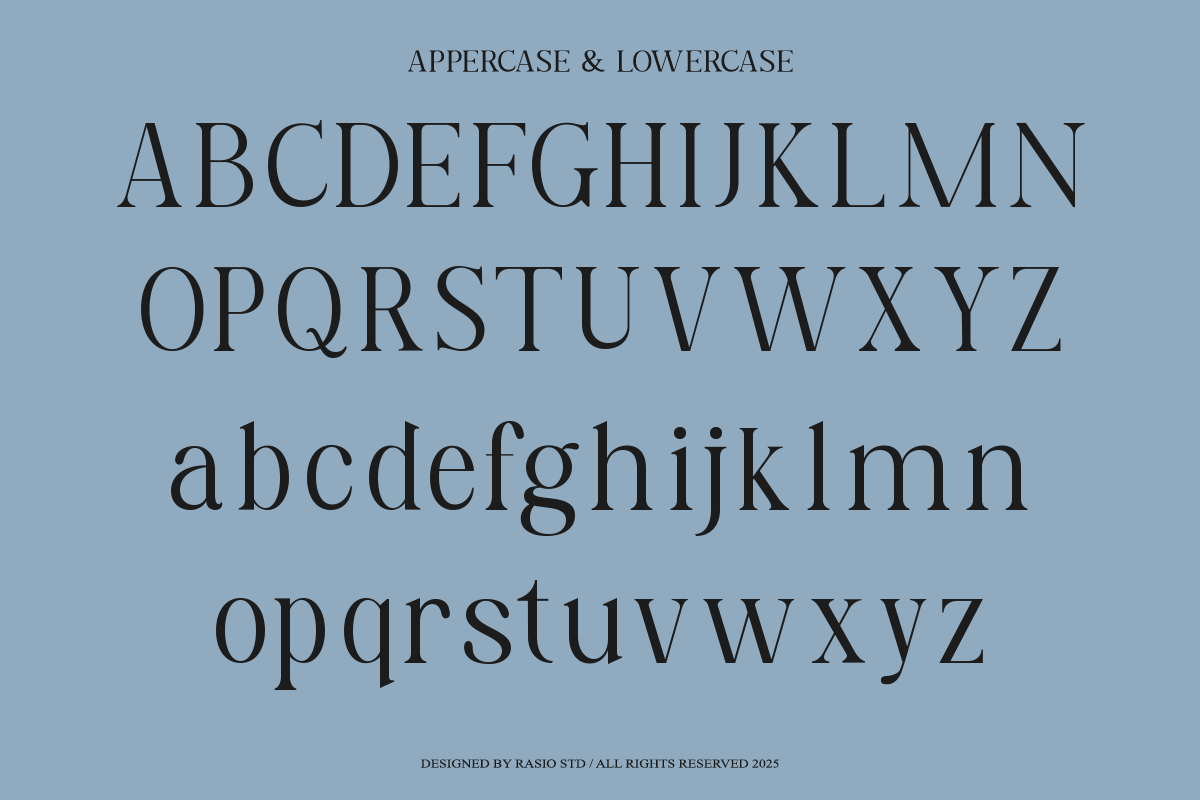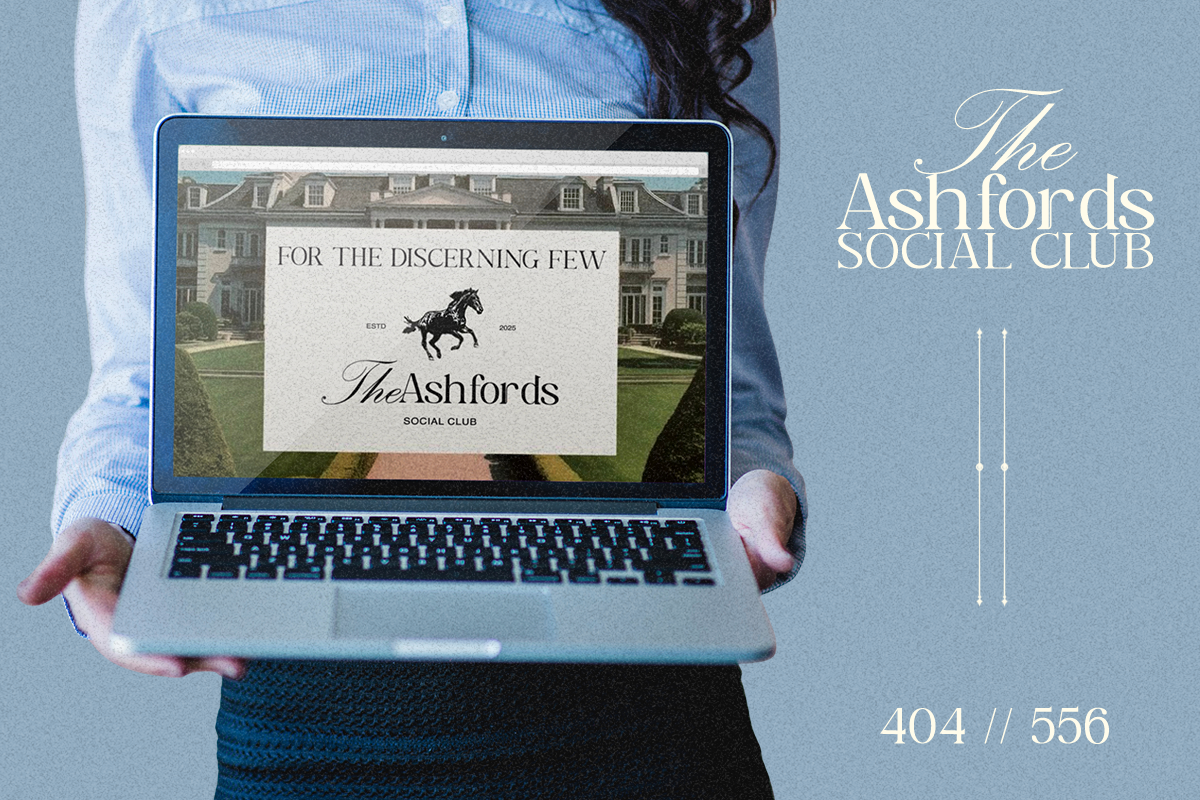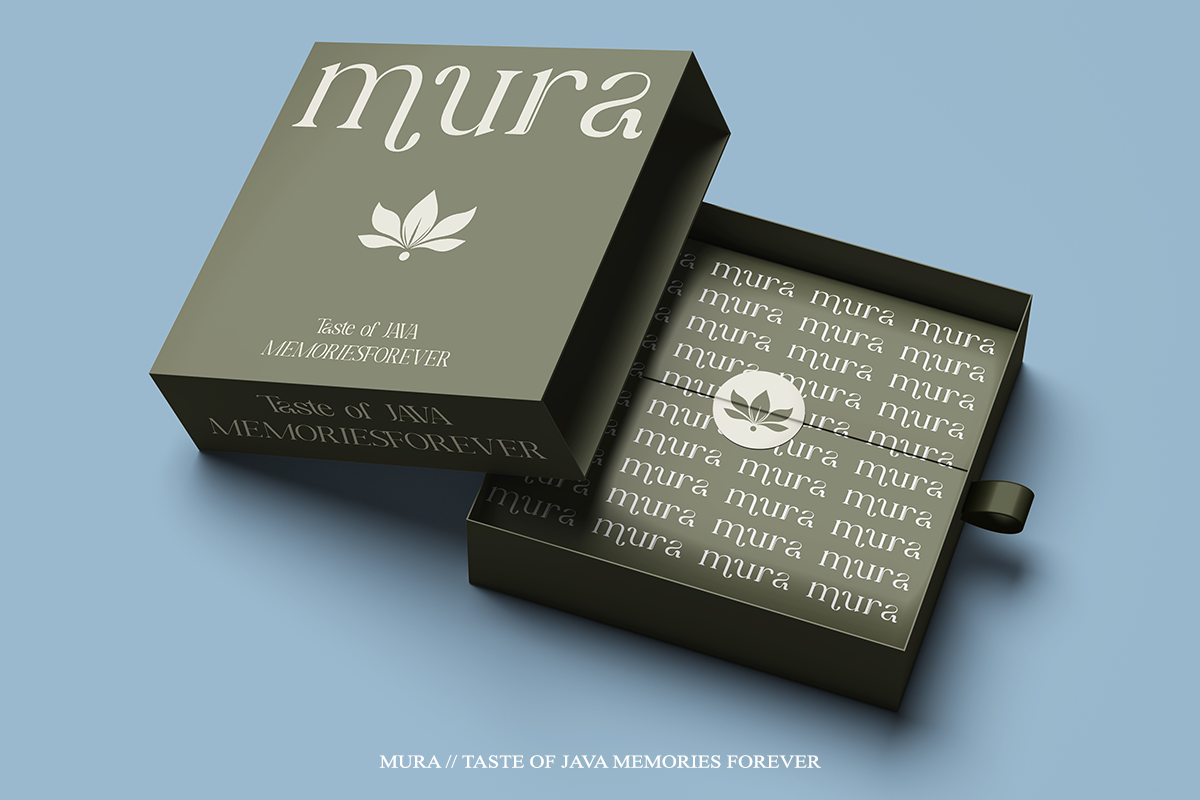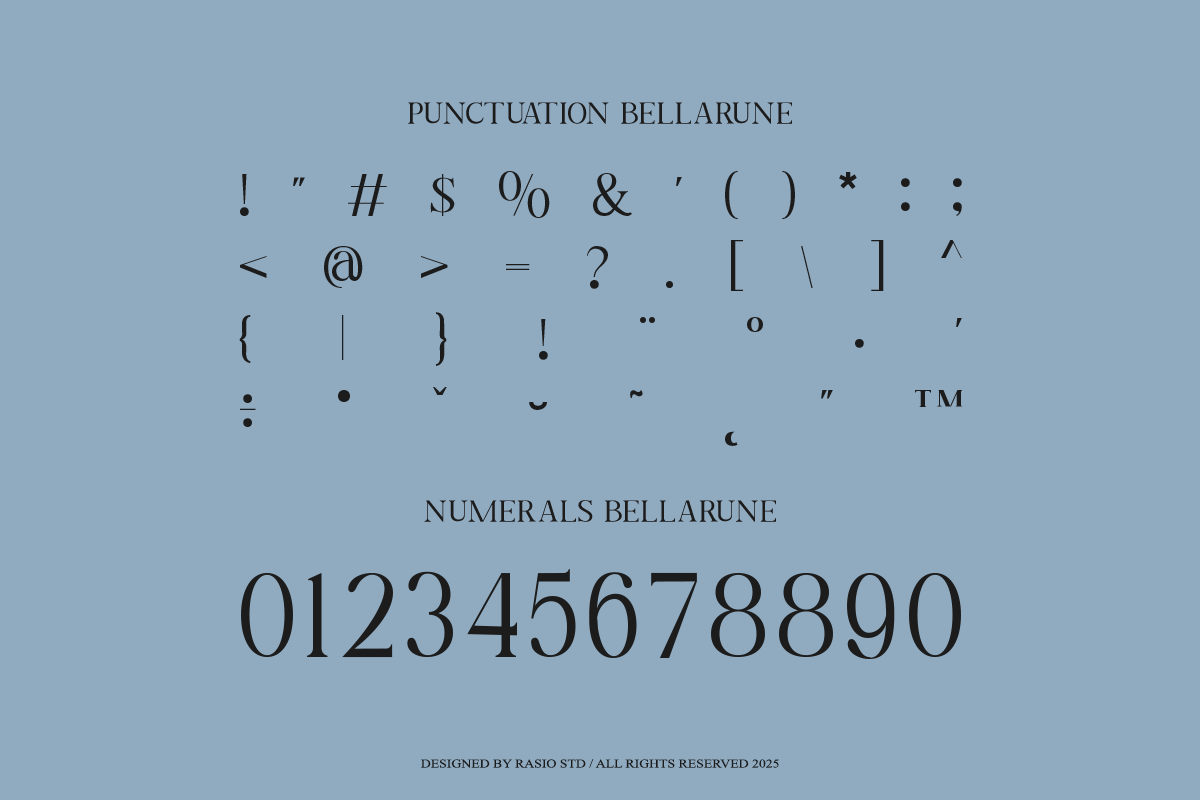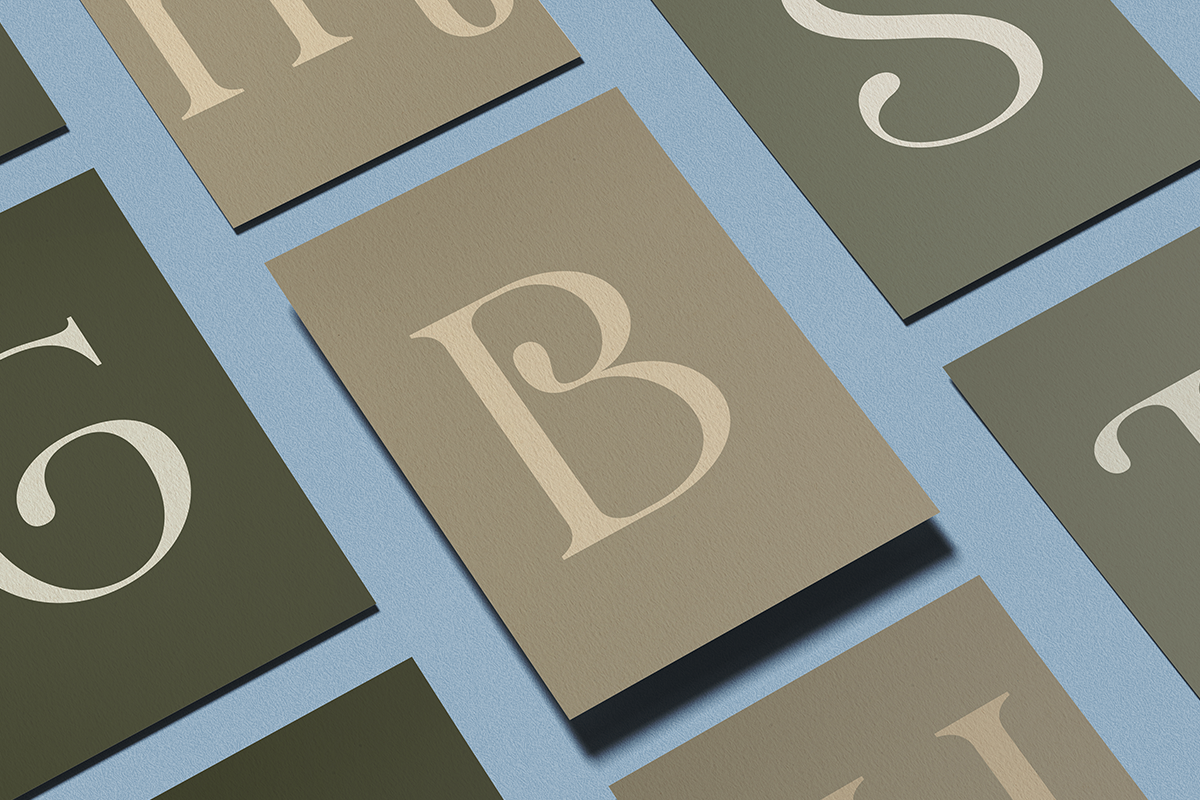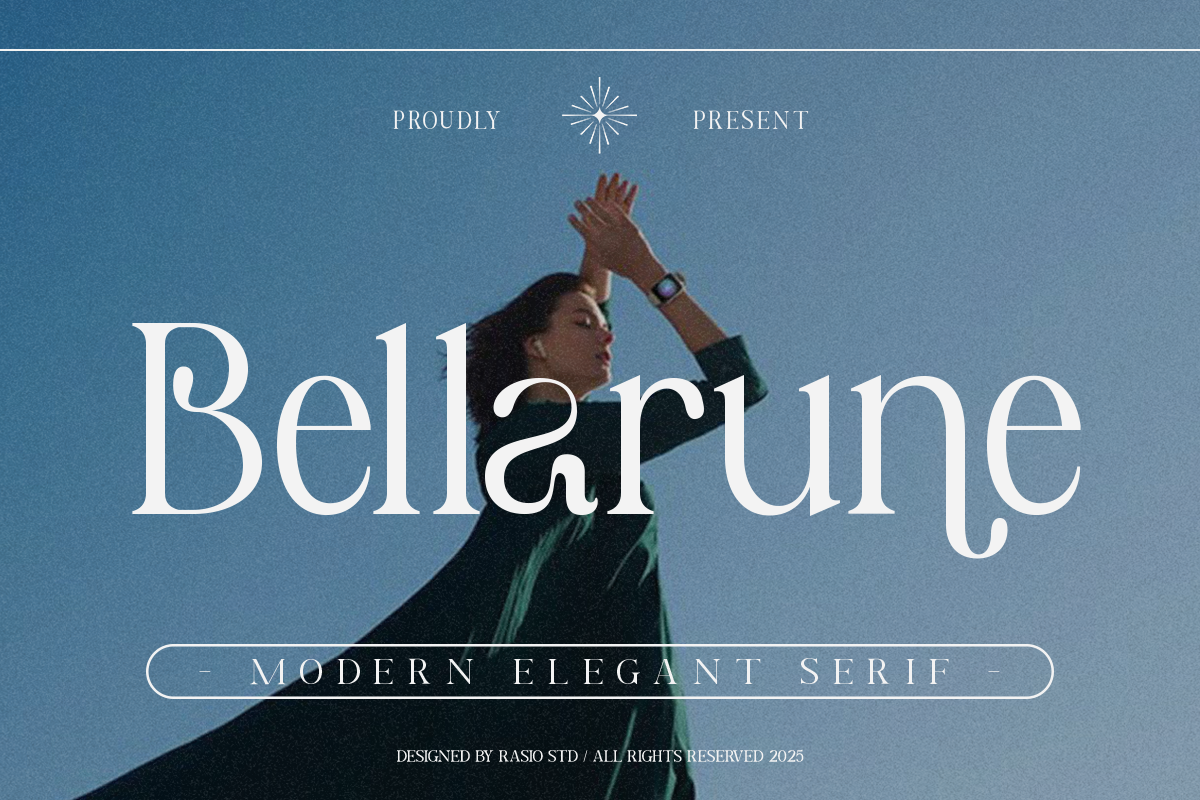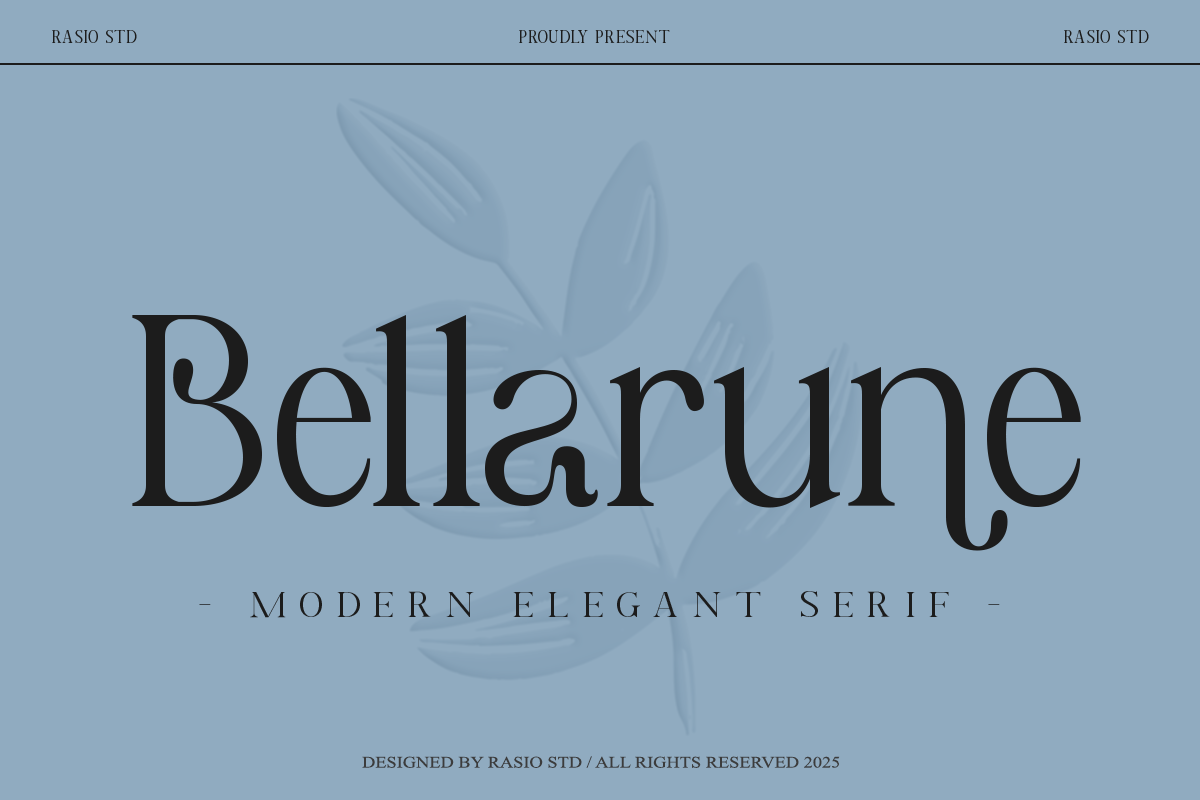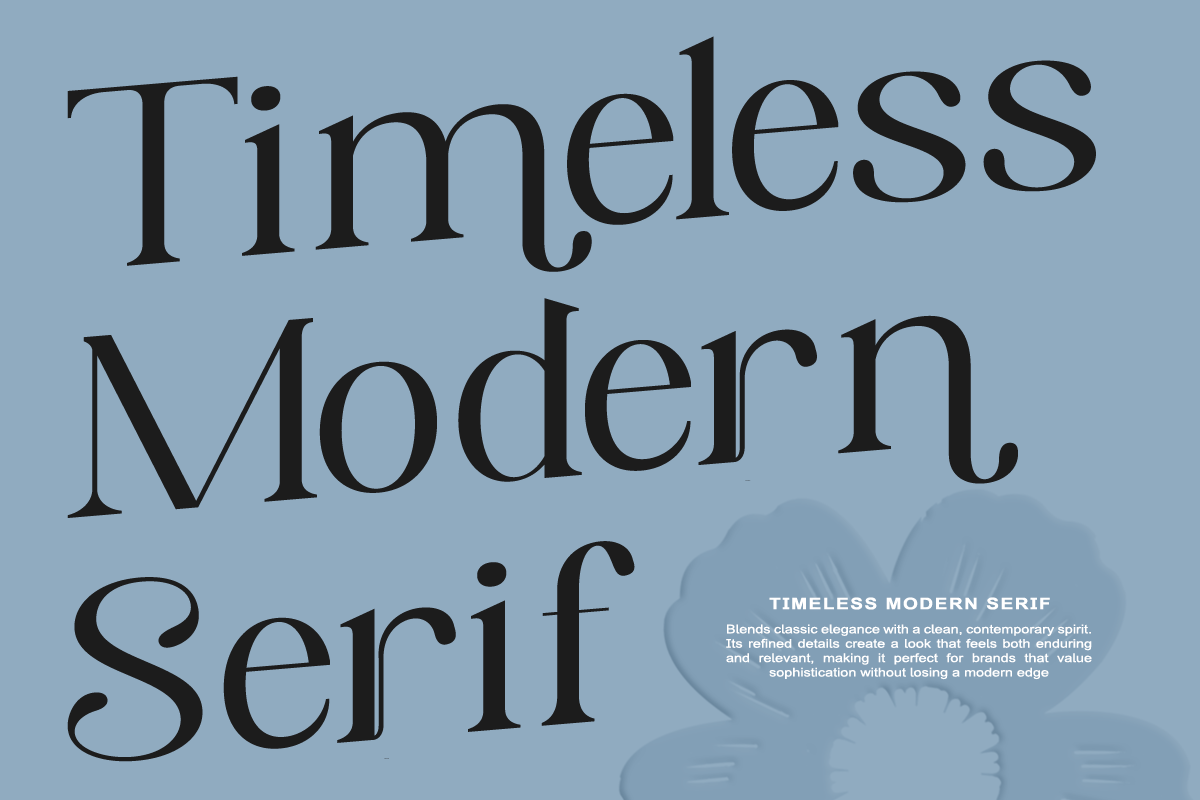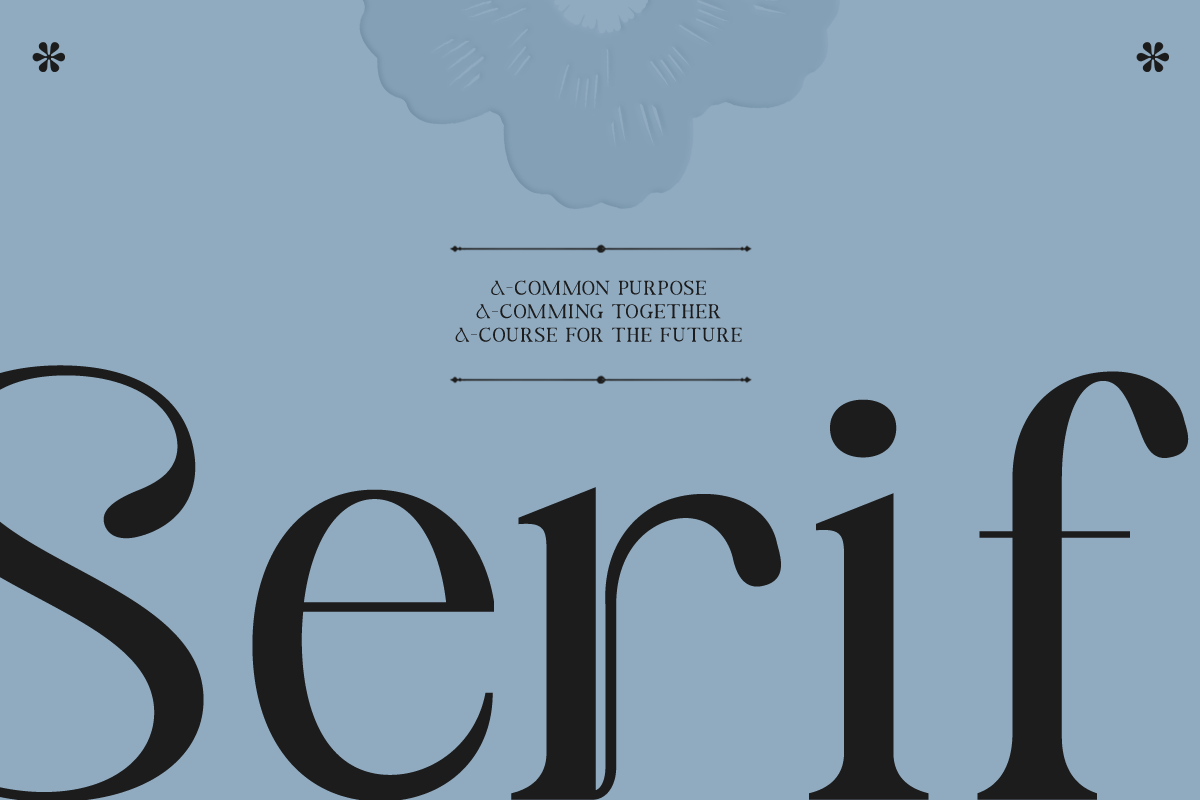
Bellarune Modern Elegant Serif Font
Bellarune is a refined and graceful modern serif typeface, designed to bring timeless elegance to contemporary design projects. With its high contrast strokes, carefully sculpted letterforms, and subtle vintage flair, Bellarune blends traditional serif sophistication with a modern aesthetic. This typeface includes uppercase and lowercase characters, numerals, and standard punctuation, ensuring it’s ready for professional use across both digital and print formats.
Relevance and Uses Cases is perfect whether you’re crafting a magazine spread, designing a perfume logo, launching a boutique label, or creating wedding stationery, portfolio presentation, boutique identity, upscale social media, minimalist layout, feminine branding, product launch, business card design, lifestyle blog, high-end website, creative agency, content creator assets, classy merchandise.
- High-contrast serif design with refined thin–thick transitions
- Elegant italic influence with graceful, flowing letterforms
- Sharp yet delicate serifs that enhance a luxurious feel
- Balanced proportions with slightly elongated stems for sophistication
- Smooth curves and subtle calligraphic touch in key characters
- Luxury brand identity and high-end visual branding systems
- Fashion editorials, lookbooks, and magazine layouts
- Wedding invitations, event stationery, and romantic designs
- Beauty, jewelry, and premium product packaging
- Cinematic posters and artistic promotional visuals